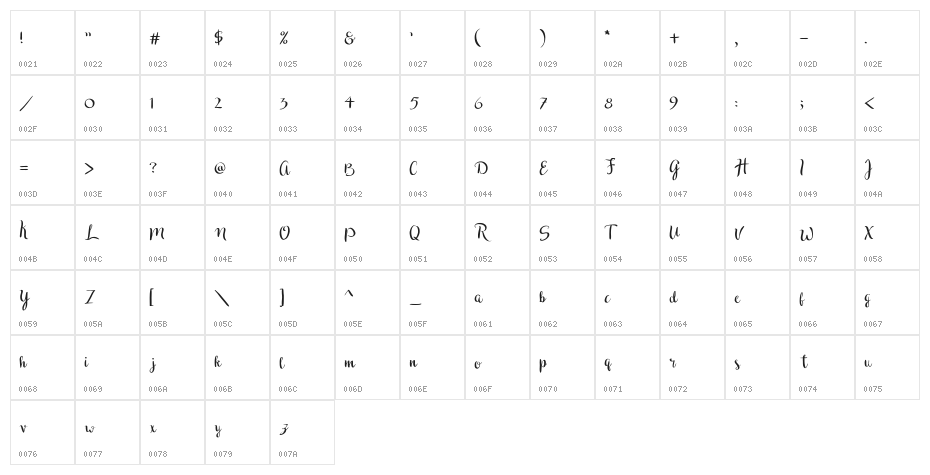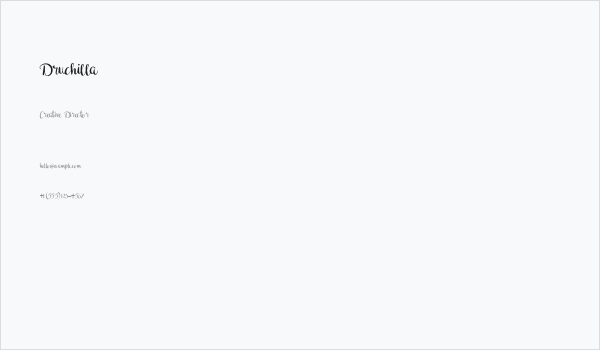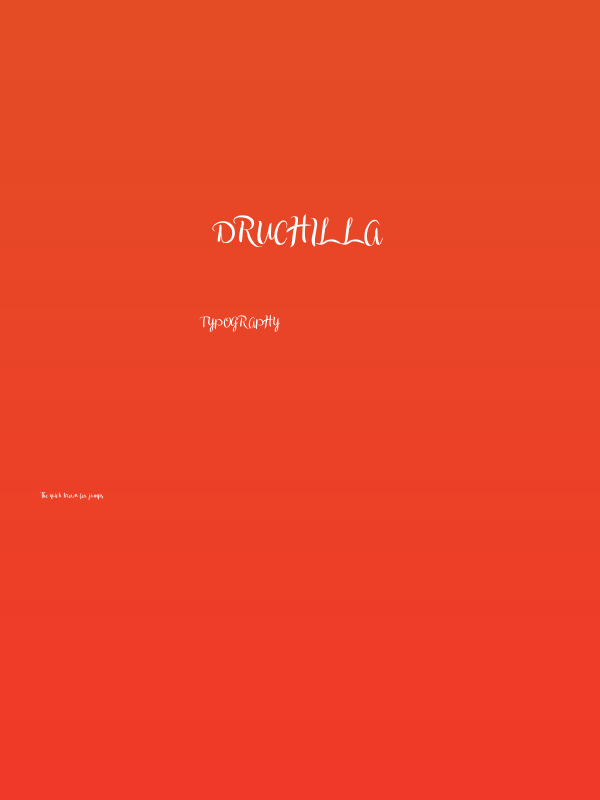
Druchilla Font
Druchilla Description
This font exudes a playful and elegant script style, characterized by its flowing, cursive letterforms that mimic the fluidity of handwriting. The uppercase letters are bold and sweeping, with a distinct flair that adds a touch of sophistication. The lowercase letters maintain a consistent rhythm, with smooth connections between characters that enhance readability. Numbers and special characters are crafted with the same attention to detail, ensuring a cohesive look across all elements. The overall design is both artistic and functional, making it suitable for a variety of creative applications.
| Proposed Projects | Ideal for wedding invitations, greeting cards, branding projects, and social media graphics. |